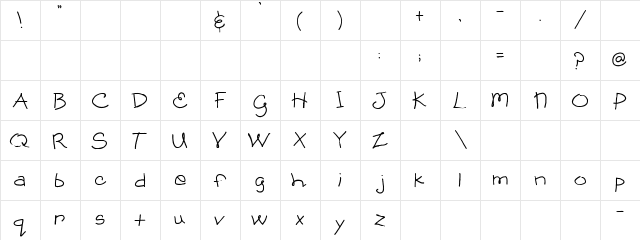
SBC Well Said Font Preview
Design Context for SBC Well Said Typeface
SBC Well Said takes a measured approach to typography — its balanced proportions and neutral character make it a reliable workhorse for both digital and print work.